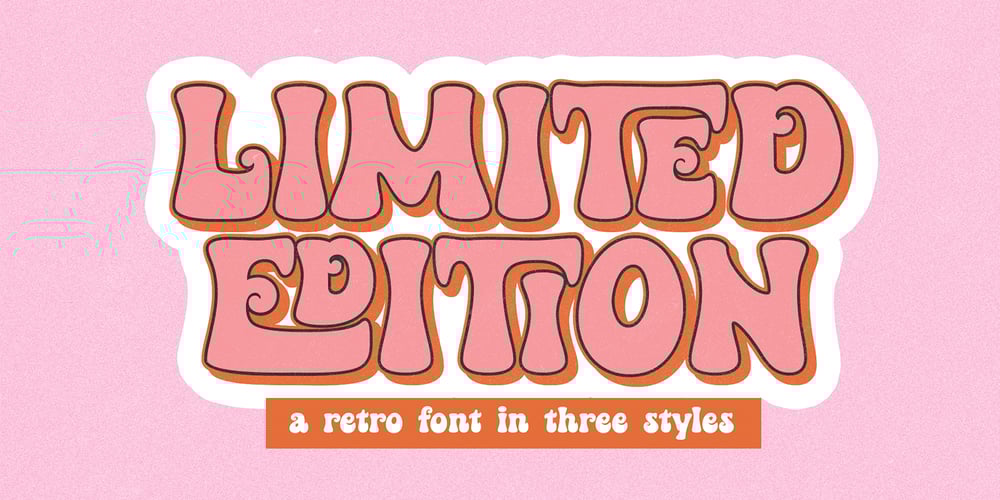
Limited Edition Font Family was designed by Kaitlynn Albani and published by KA Designs. Limited Edition contains 3 styles and family package options. If you are looking for a versatile modern retro font, look no further! Limited Edition was designed to bring together modern design and that popular 1960’s retro style that everyone loves. This font includes interlocking letter pairs that are sure to make all of your designs stand out!There are three styles available – Regular, Outline and Shadow.Layer all three to create your own custom design!Limited Edition is perfect for branding, logos, editorial, magazines, signs, print, t-shirt design, stickers and more!